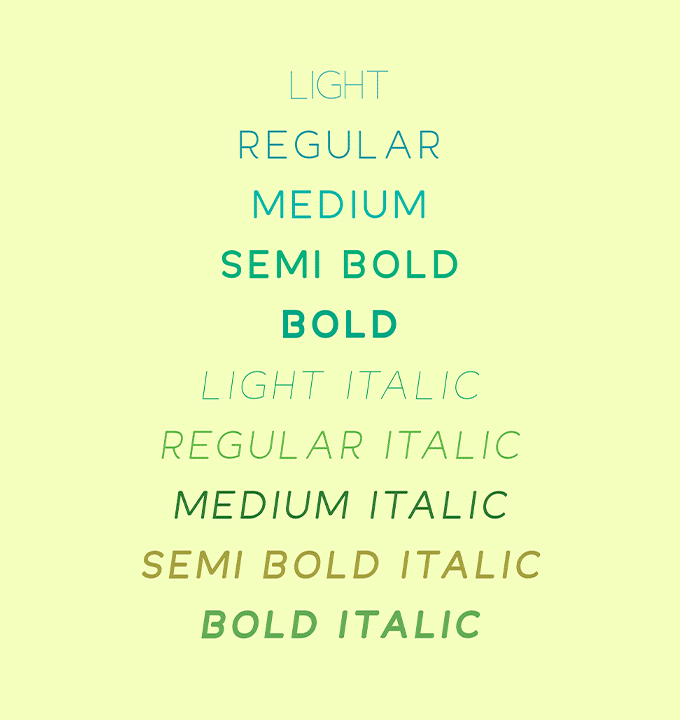
FSL Mridulekha font
is a modern Malayalam and English Unicode font, crafted with precision and balanced design. Built for branding, print, and digital media, the family includes 10 professional weights with matching Italics, giving designers a comprehensive toolkit for Malayalam typography. Mridulekha adapts cleanly to any layout, preserving elegance and legibility across sizes and formats. Fully Unicode-compliant and tested on Windows, Mac, Android, and iOS, the font ensures consistent rendering across platforms. Delivered in OTF and TTF formats, FSL Mridulekha font blends traditional letterform sensitivity with contemporary usability.